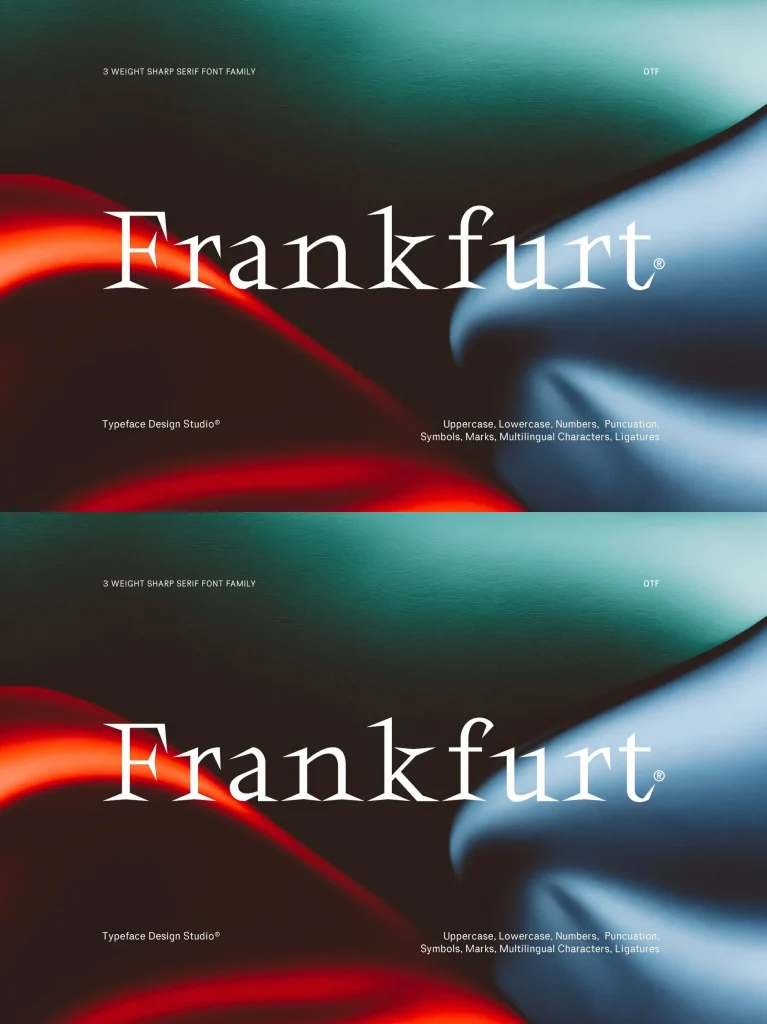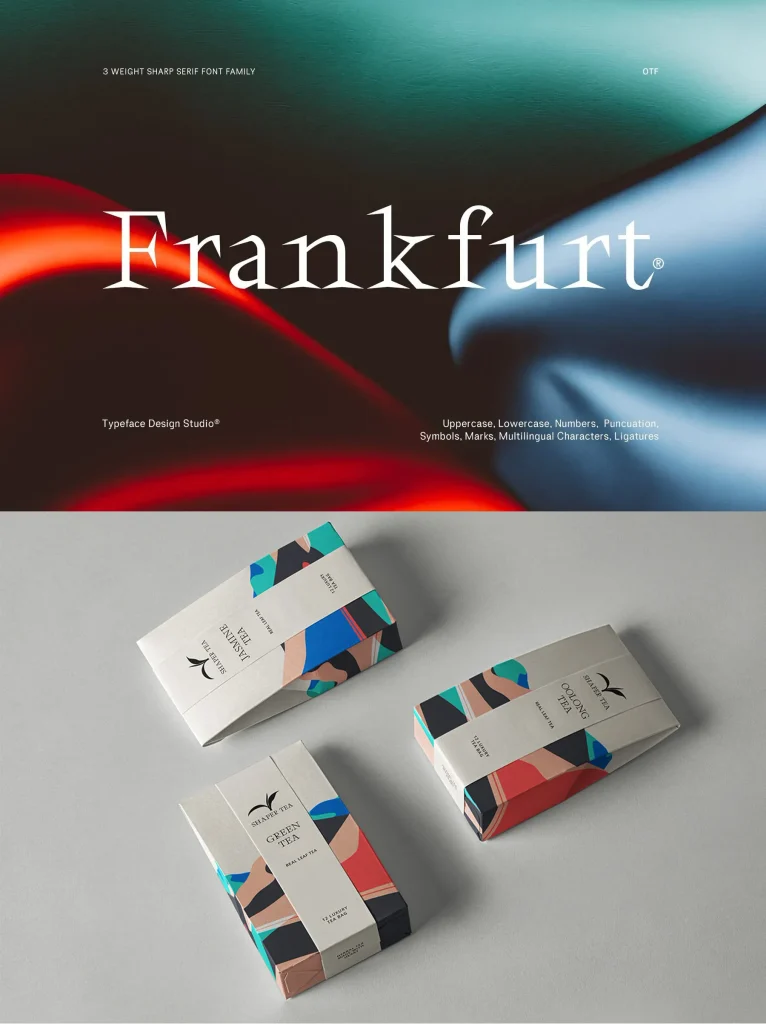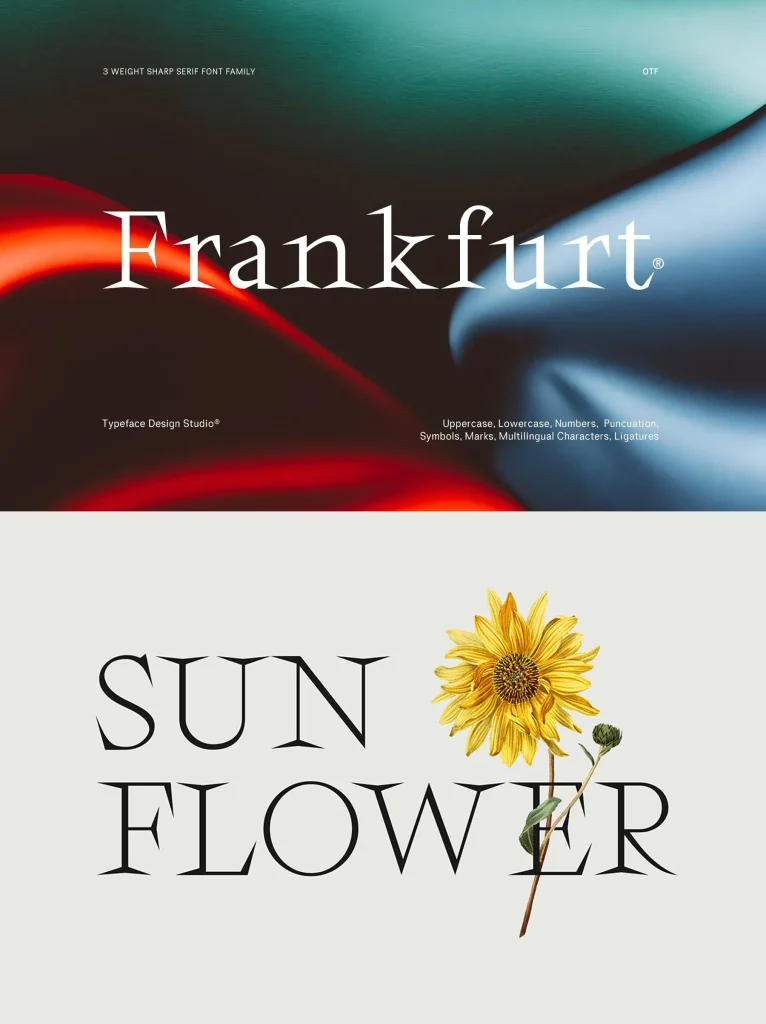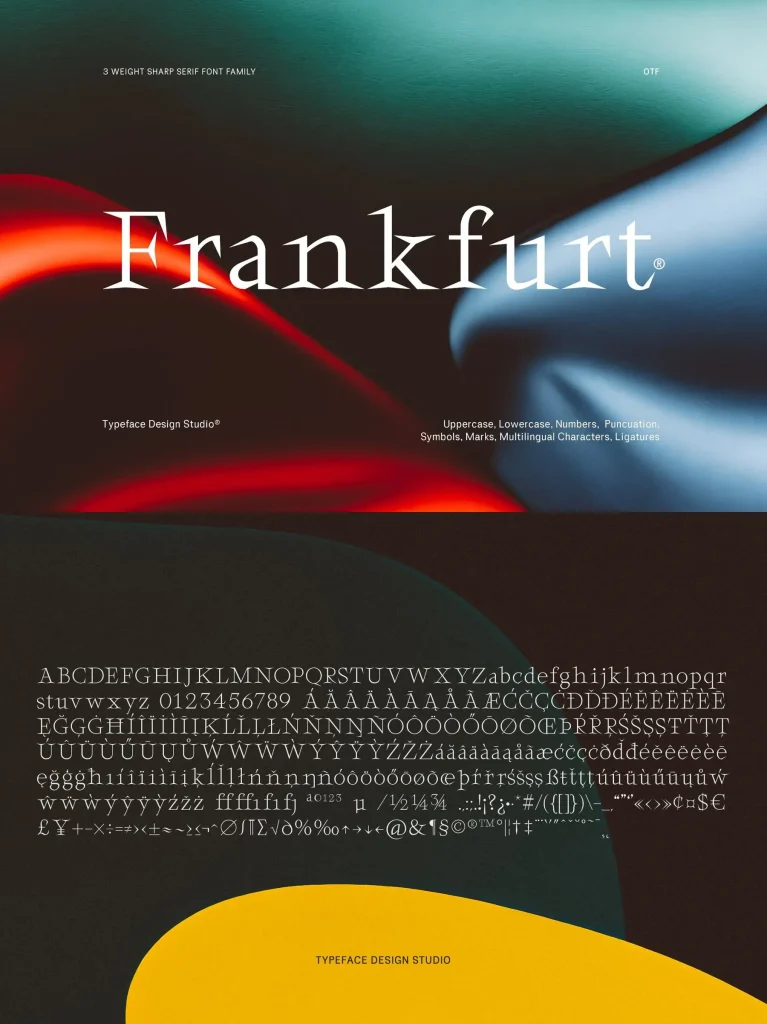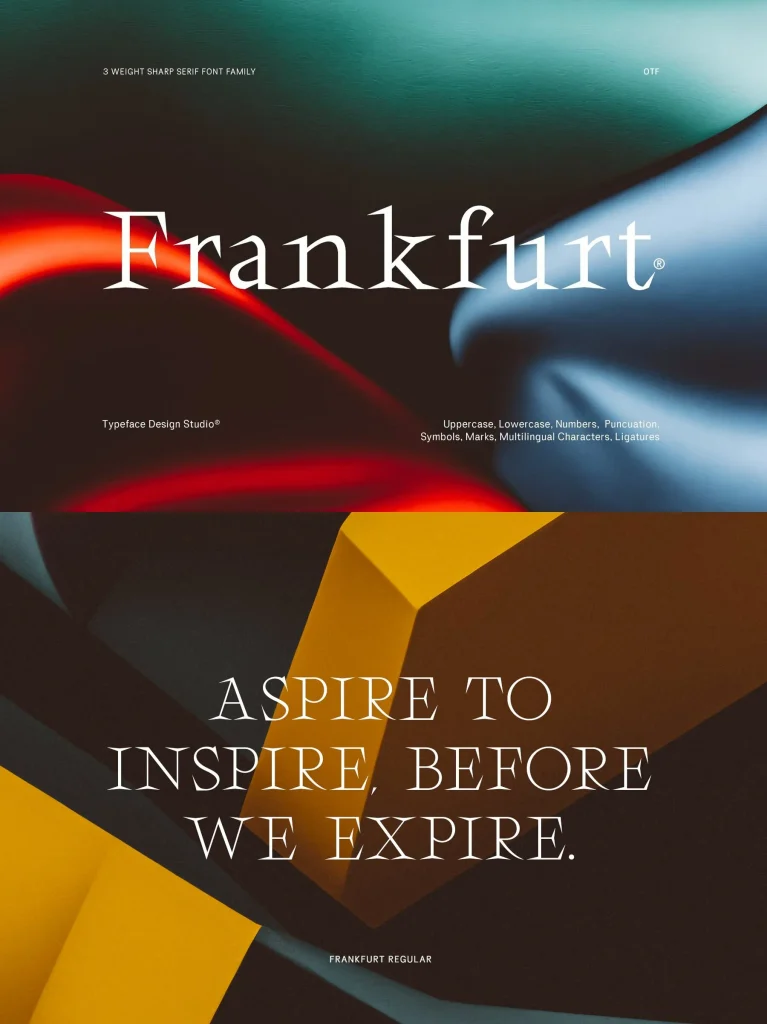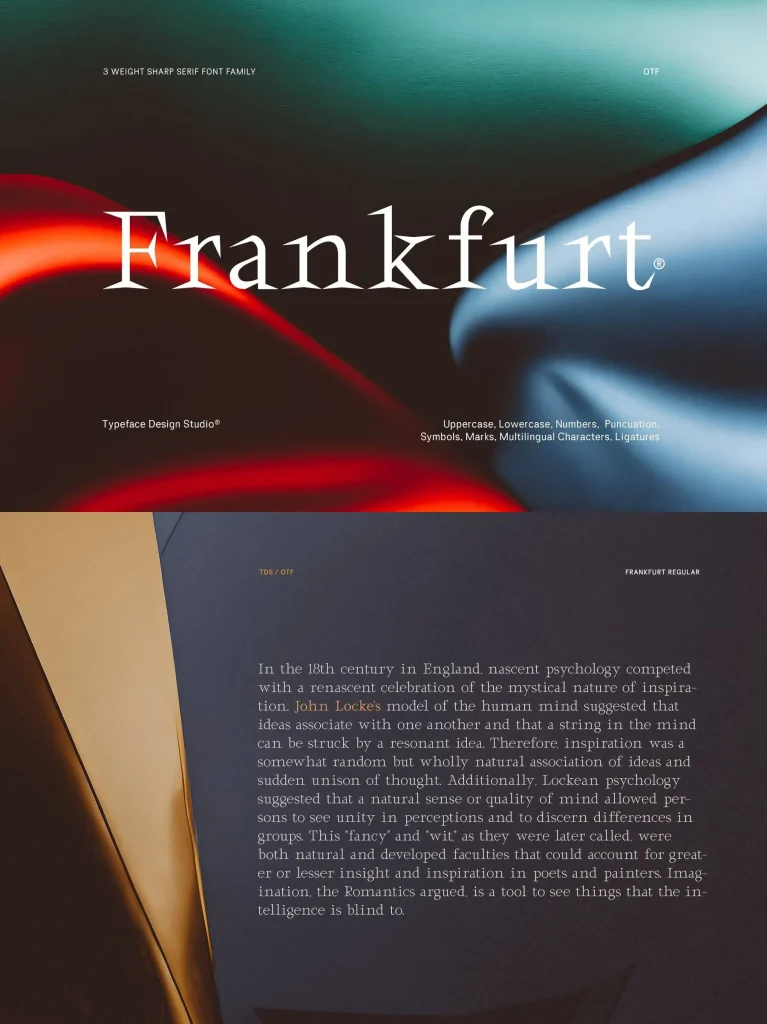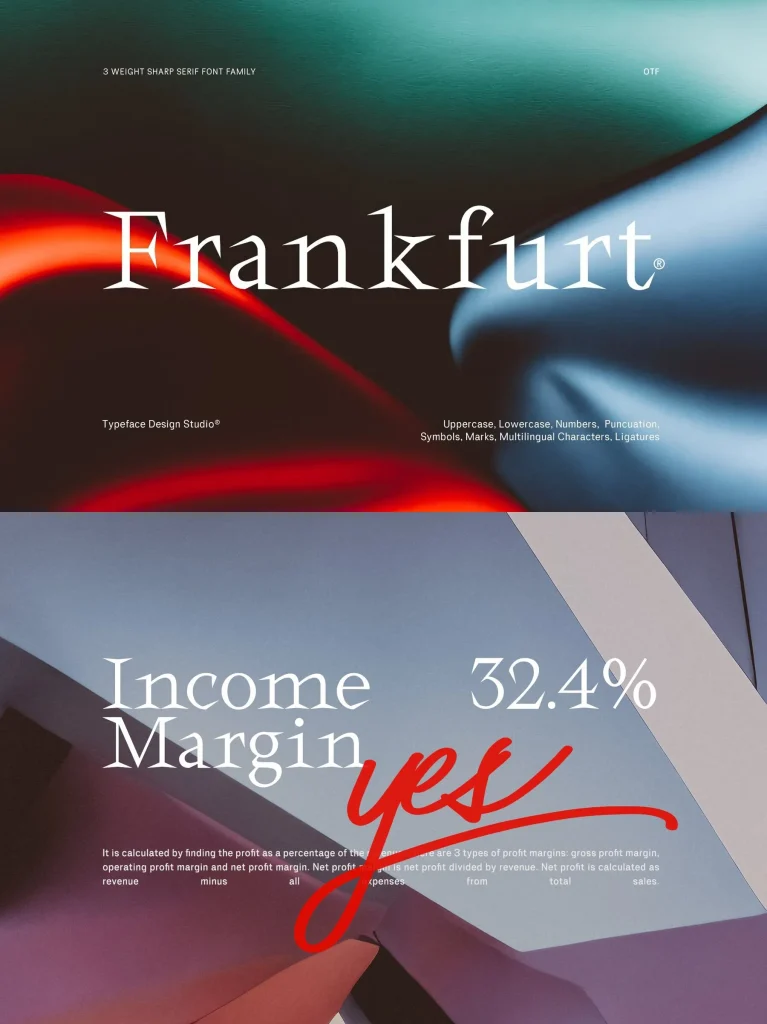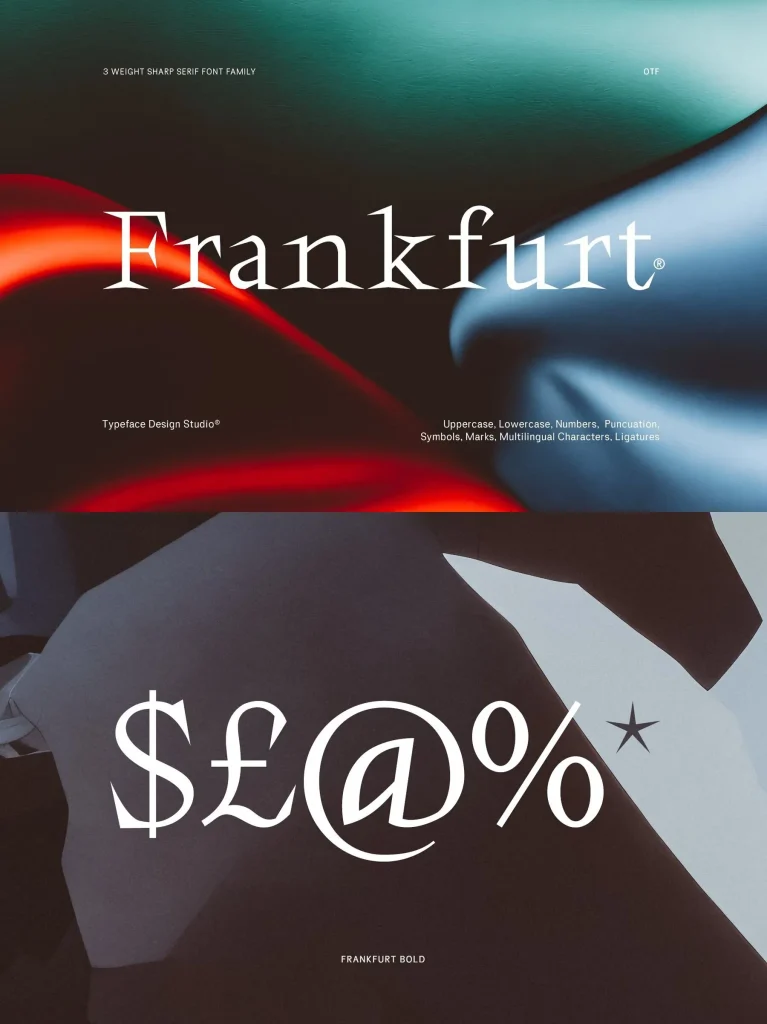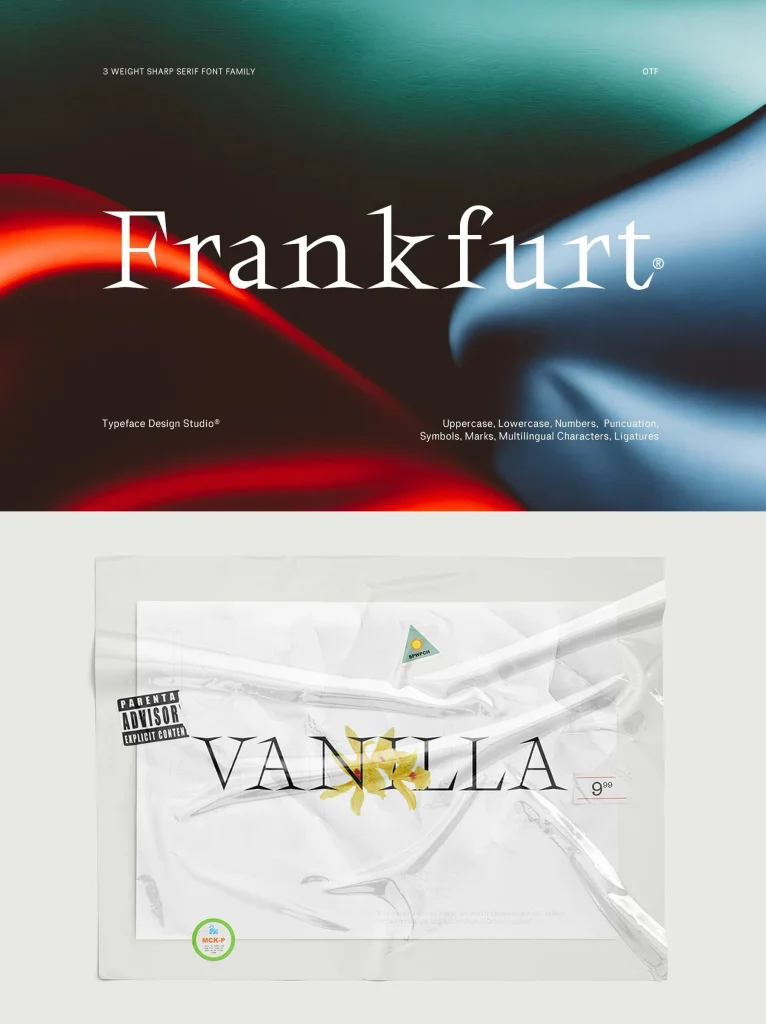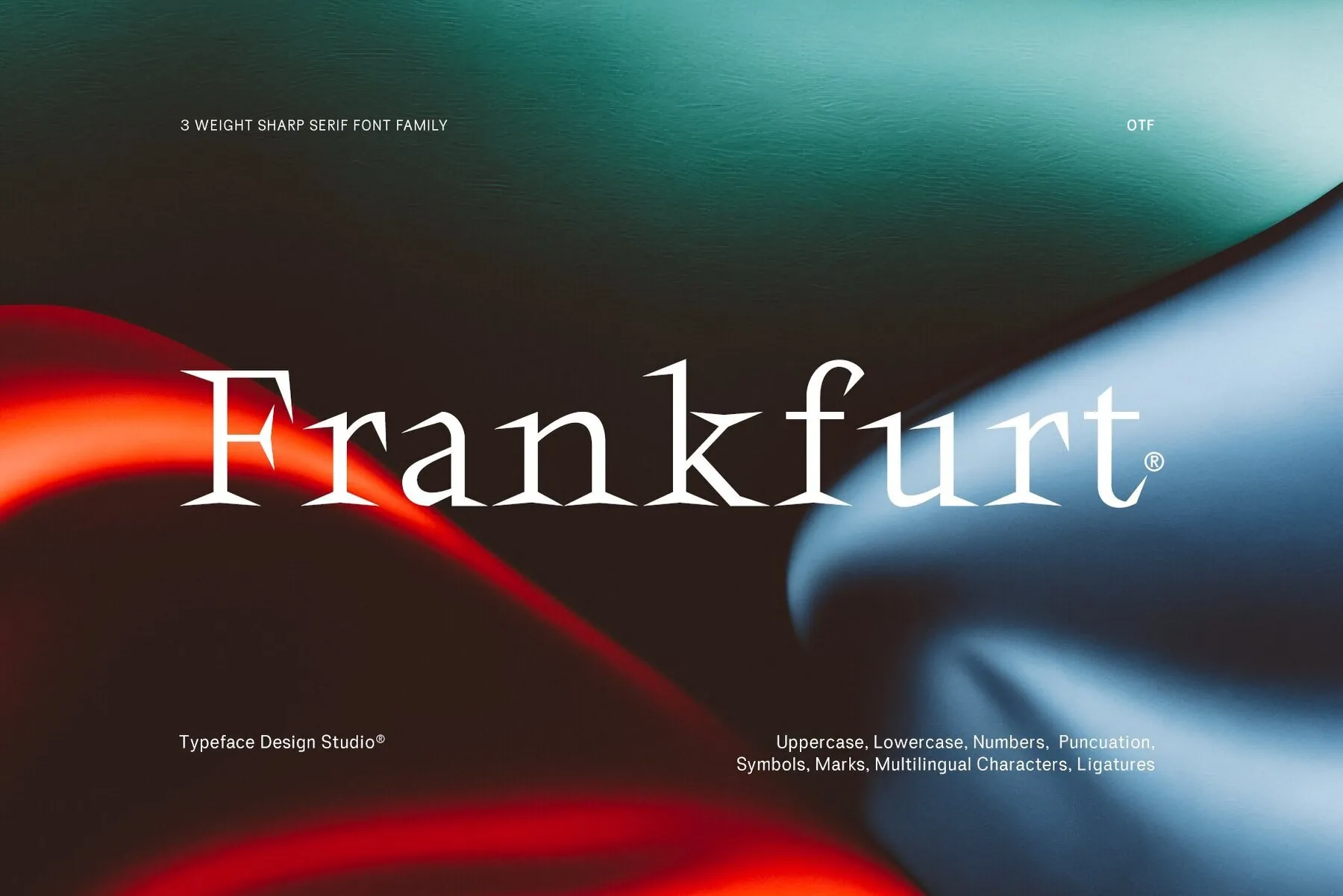
Frankfurt — A Modern Serif with Authority
Frankfurt is a serif typeface crafted with modern sensibility in mind. This distinctive serif font family reads sharp and decisive, with a clear presence across editorial and brand work. Pair it with other fonts to build contrast and a more individual voice, whether you’re setting display headlines or supporting text in a broader typographic system.
Perfect for marketing, modern corporate logos, and trademark design, Frankfurt includes uppercase, lowercase, ligatures, punctuation, symbols, marks, numbers, and multi-language support. With three style options—Thin, Regular, and Bold—Frankfurt also suits magazines, posters, and UI/UX designs where a confident serif helps anchor the layout. Includes 3 styles, and an additional variable font option (TTF) is included for free in the Complete Family.